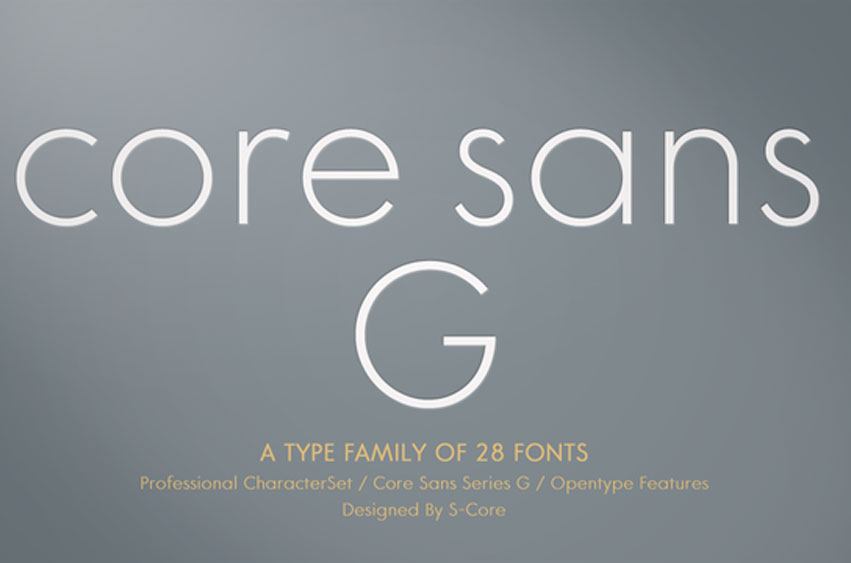
Core Sans G Font
Core Sans G Font fits in headlines, logos, posters, flyers, invitations, name cards, branding materials, print media, editorial layouts, and many more.
Every letter has a unique and beautiful touch, which will make your design come alive!